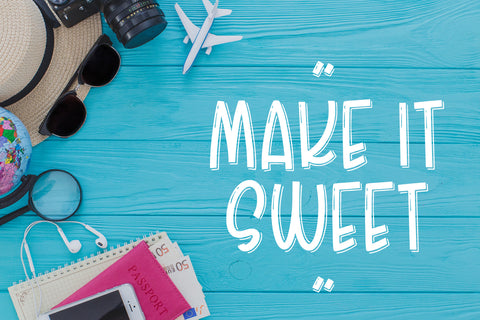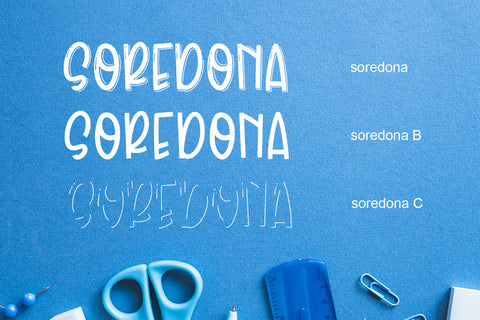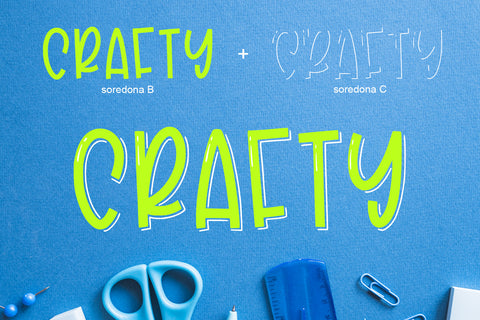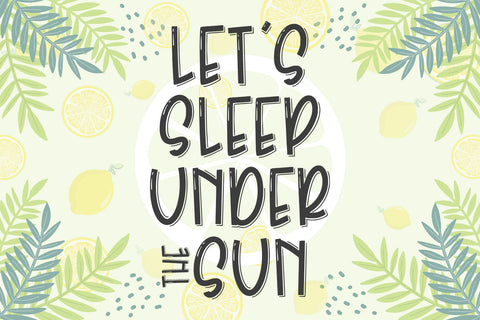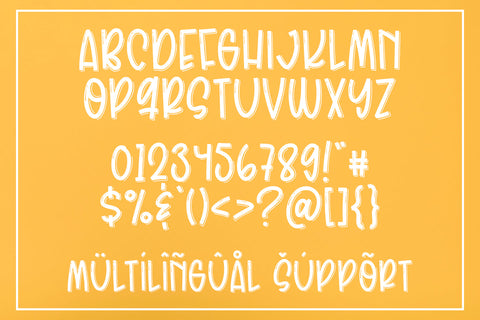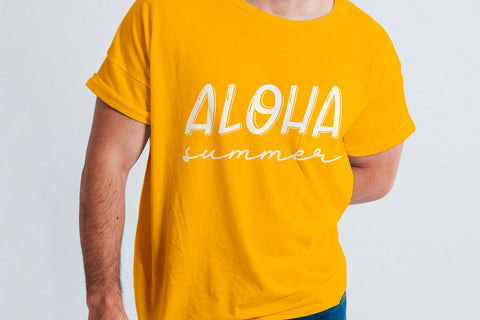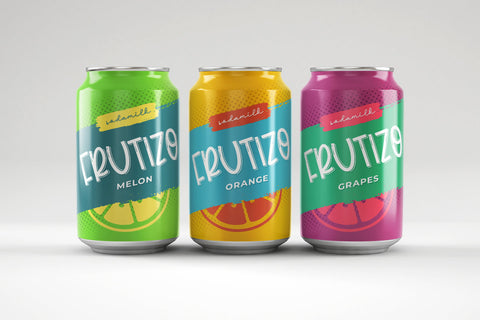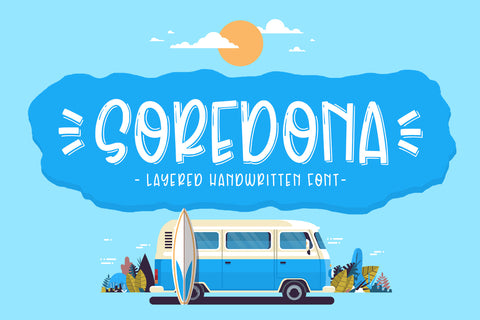
Soredona
introducing
SOREDONA
-crafty handwritten font-
it is a simple, natural, and fun handwritten font.
This is an uppercase font designed for crafters.
It is great for branding, packaging, quotes, t-shirt design, card, banners, cutting, silhouettes, and anything of craft project.
It looks so natural.
it came with 3 types:
- Soredona (regular)
- Soredona B
- Soredona C
Soredona B and Soredona C are a great combinations.
- Number & punctuations
- Multilingual